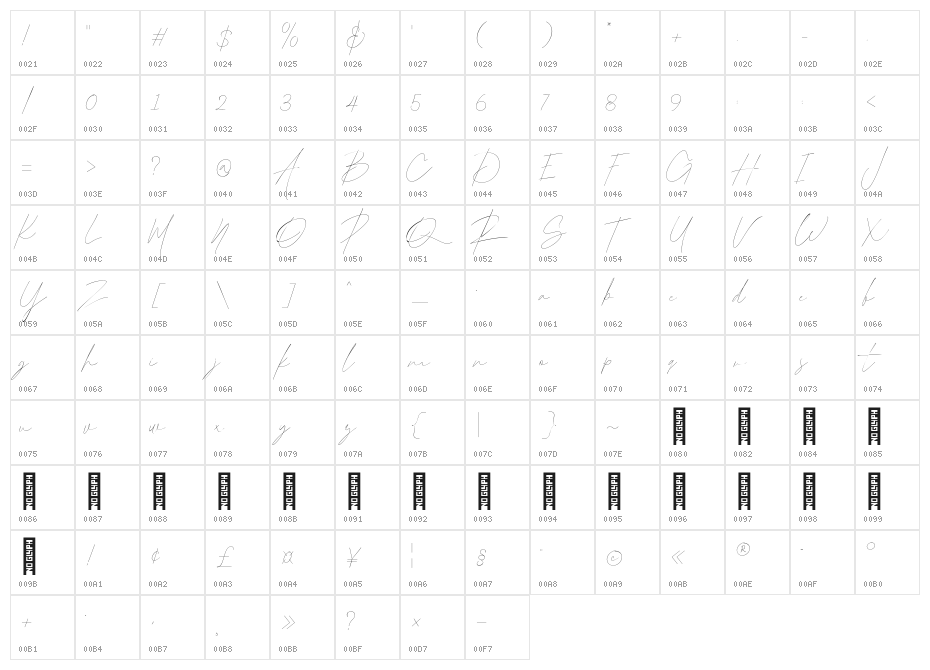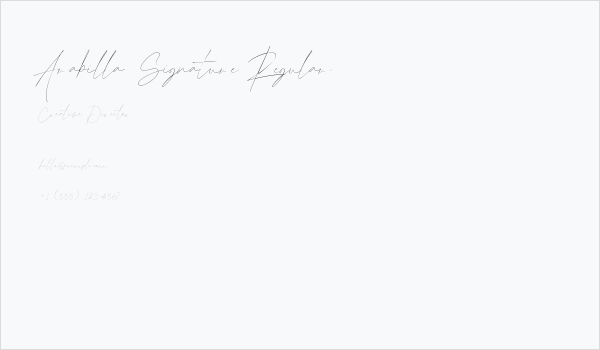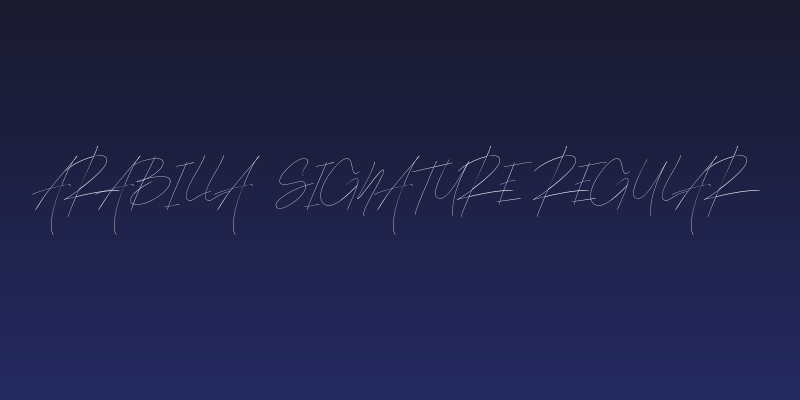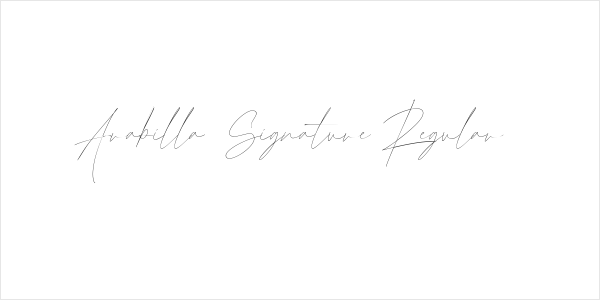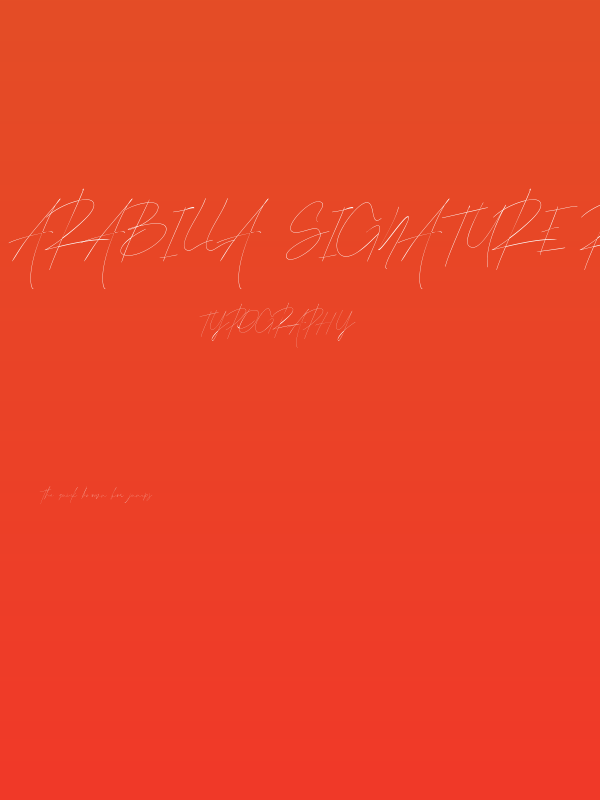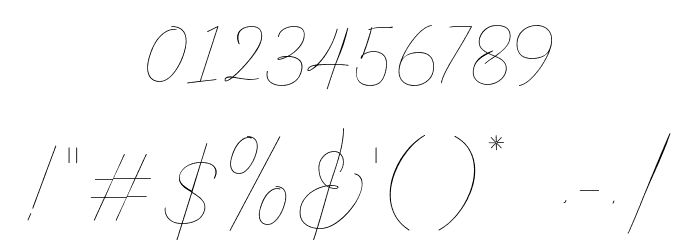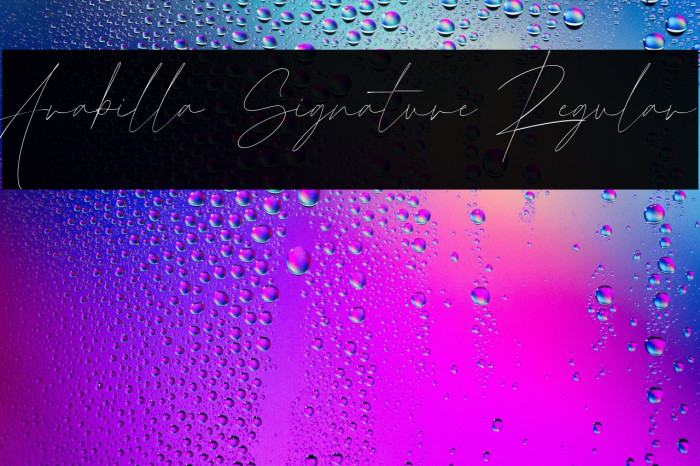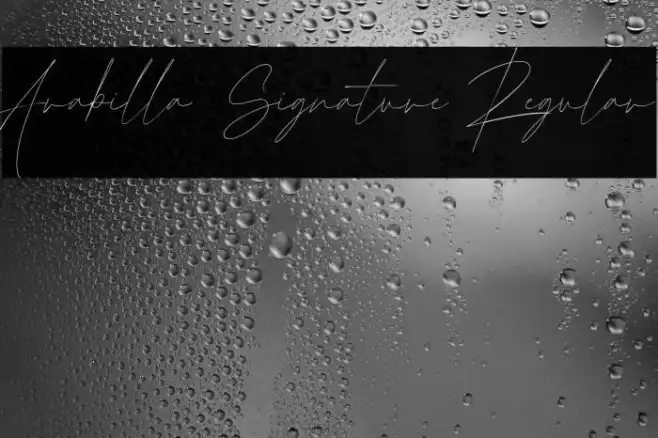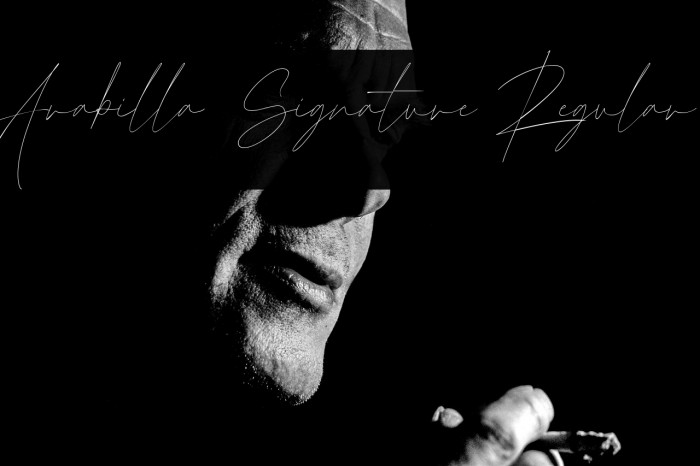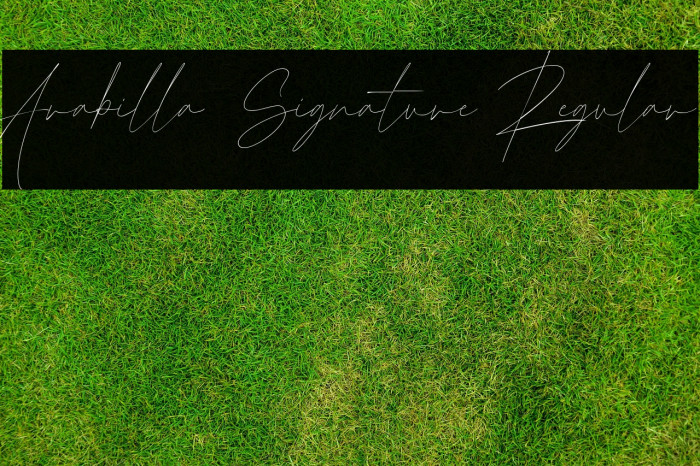
Arabilla Signature Regular Font
Arabilla Signature Regular Description
This elegant and flowing script font exudes a sense of sophistication and grace. The letters are crafted with a delicate, thin stroke that gives it a light and airy feel. The characters are connected in a fluid manner, resembling a natural handwriting style that is both stylish and legible. The uppercase letters are slightly larger and more pronounced, while the lowercase letters maintain a consistent flow. The numerals and special characters are designed to complement the overall aesthetic, maintaining the same thin and graceful lines. This font is perfect for projects that require a personal touch or a sense of elegance.
| Proposed Projects | Ideal for wedding invitations, personal branding, elegant logos, and stationery design. |